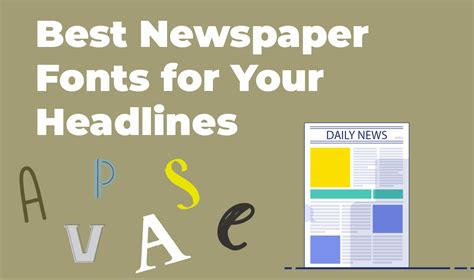
Download Newspaper Fonts: Best Options For Your Projects
Hey guys! Ever wondered what fonts newspapers use? Or maybe you’re looking to give your project that classic, trustworthy newspaper vibe? Well, you’ve come to the right place! This article is all about helping you download newspaper fonts and how to use them effectively. Let’s dive in and explore the world of newspaper typography!
Understanding Newspaper Fonts
First things first, let’s get a grip on what makes a font a “newspaper font.” Generally, these fonts are designed for readability and efficiency, especially when printed on newsprint. Think about it: newspapers need to pack a lot of information onto a page, and the fonts need to be clear and easy on the eyes, even in small sizes. Key characteristics include high legibility, narrow widths (to fit more text), and a classic, somewhat serious appearance. Common types include serif fonts like Times New Roman, Georgia, and Century Schoolbook, which have those little feet or strokes at the end of the letters that guide the eye along the line. These fonts have stood the test of time for a reason and remain staples in the industry today.
Another crucial aspect is that newspaper fonts are often optimized for print. Back in the day, newspapers were printed using methods that weren’t always the sharpest, so fonts needed to be robust enough to remain clear even with slight imperfections in printing. Nowadays, even with digital newspapers and higher quality printing, these fonts maintain their relevance because they convey a sense of authority and tradition. Plus, many of these fonts are available in a wide range of weights and styles, allowing for versatility in headlines, body text, and captions. When selecting a font, consider the overall tone and purpose of your project. Are you going for a serious, informative feel, or something a bit more creative and modern? The font you choose can significantly impact how your message is received. So, choosing the right newspaper font isn’t just about aesthetics; it’s about ensuring your content is readable, accessible, and credible. Remember, the goal is to present information clearly and effectively, and the right font can go a long way in achieving that.
Top Newspaper Fonts and How to Use Them
Let’s get specific! Here are some top newspaper fonts and how you can use them to achieve that authentic newspaper look. Understanding how to download newspaper fonts is just the first step, now we need to know what to do with them!
• Times New Roman: The classic! You can’t go wrong with Times New Roman for body text. It’s highly readable and gives a very traditional newspaper feel. Use it in 10-12pt for optimal readability. It’s so ubiquitous that it’s almost invisible, which is exactly what you want for body text. It does its job without calling attention to itself, allowing the content to take center stage.
• Georgia: A slightly more modern serif font that’s also highly readable, especially on screens. It works well both in print and digital formats. Use it in a slightly larger size than Times New Roman (11-13pt) for a similar effect. Georgia was designed specifically to be legible on screens, making it a great choice for online publications.
• Baskerville: A more elegant serif font that can add a touch of sophistication to your newspaper layout. Use it for headlines or subheadings to create a visual hierarchy. Pair it with a simpler sans-serif font for body text to balance the overall look. Baskerville has a refined and classic appearance, making it suitable for more upscale or literary publications.
• Roboto Slab: A versatile slab serif font that works well for both headlines and body text. It has a modern, clean look that’s still highly readable. Use different weights to create visual interest. Roboto Slab is a great option if you want a font that feels contemporary but still has a touch of the traditional slab serif style.
So there you have it! You’re now equipped with the knowledge to download newspaper fonts and use them like a pro. Whether you’re designing a newsletter, a website, or a poster, these fonts can add a touch of class and credibility to your project. Just remember to choose fonts that are readable, use them consistently, and always respect the font license. Happy designing, folks!